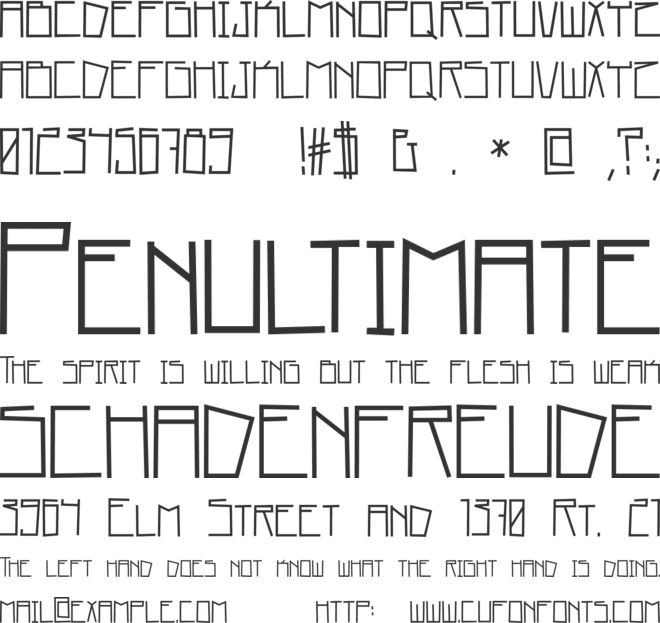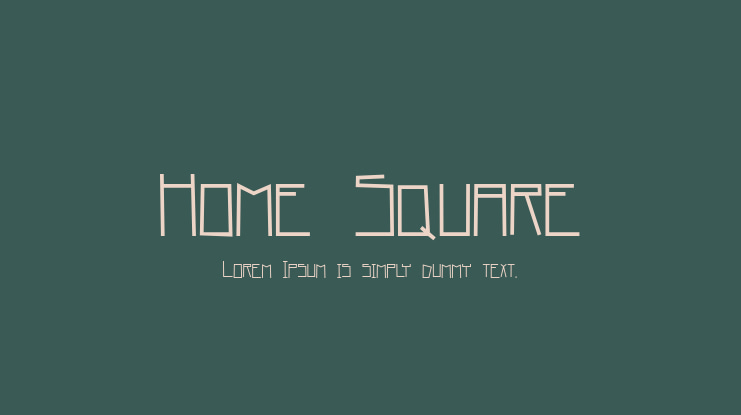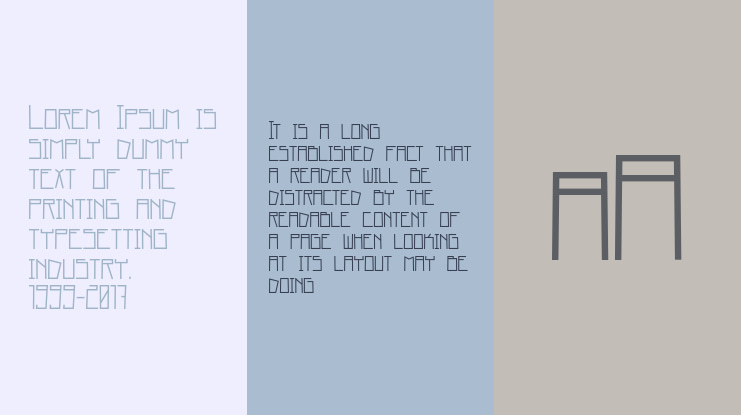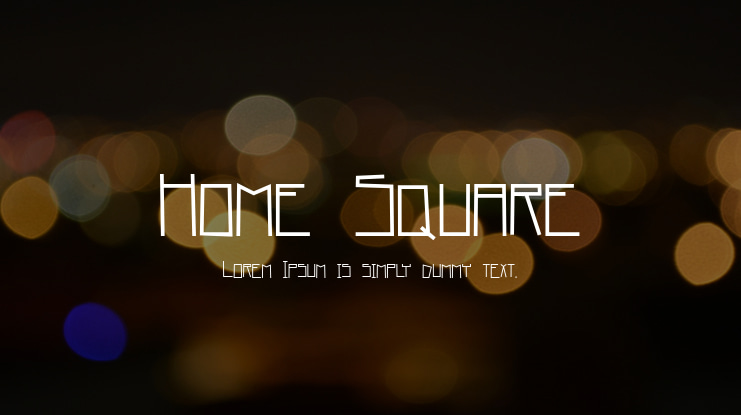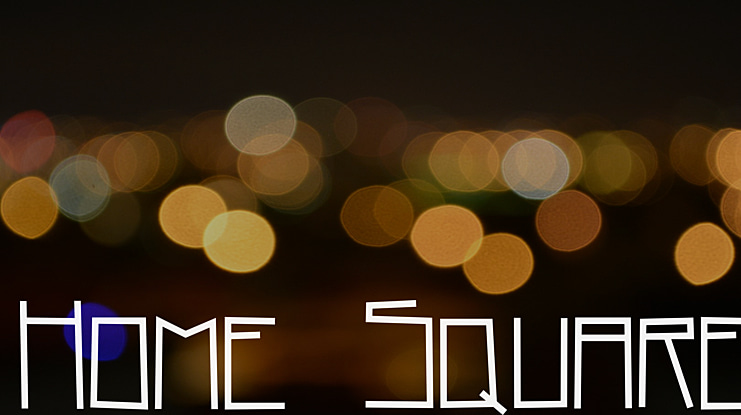
Home Square Font
For all your hiphop / rap graphics needs, Home Square is what my homies like. This font is good for tagging, spraying, displaying your name and your message.